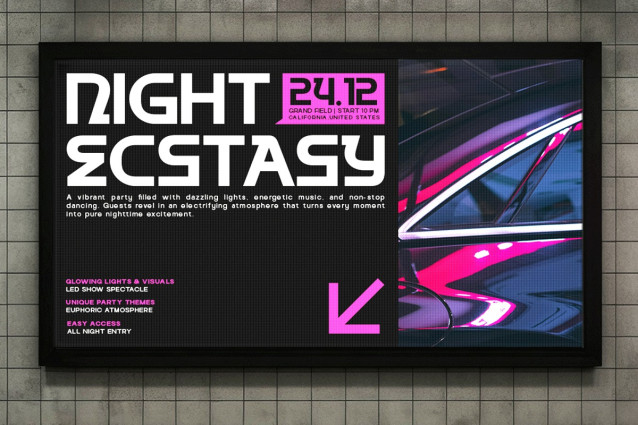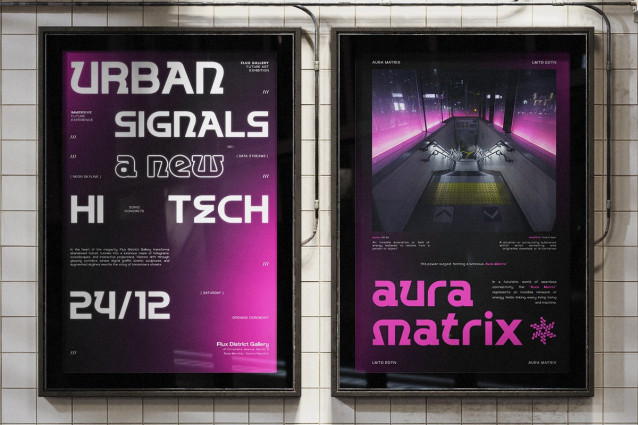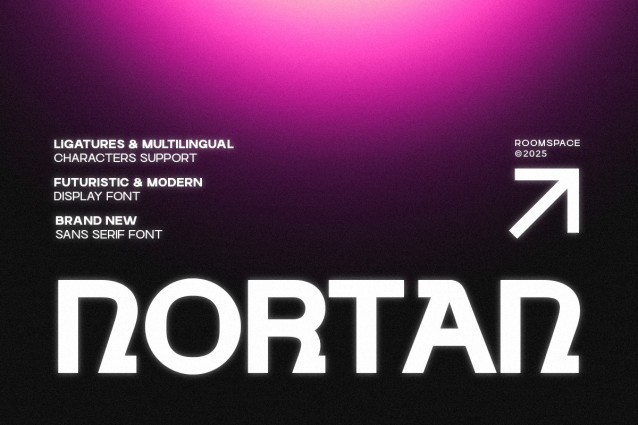
Nortan Font
Nortan Font a high-tech personality with sleek geometry and cinematic sharpness. It speaks innovation: digital-forward, forward-moving, and ultra-contemporary. Nortan is a futuristic display sans-serif designed to elevate modern branding with its clean geometry and tech-inspired personality. Its unique shapes and sleek proportions make it ideal for digital design, gaming interfaces, startup branding, app visuals, and editorial layouts seeking a cutting-edge aesthetic. Built for designers who want clarity, innovation, and forward-thinking visual presence.